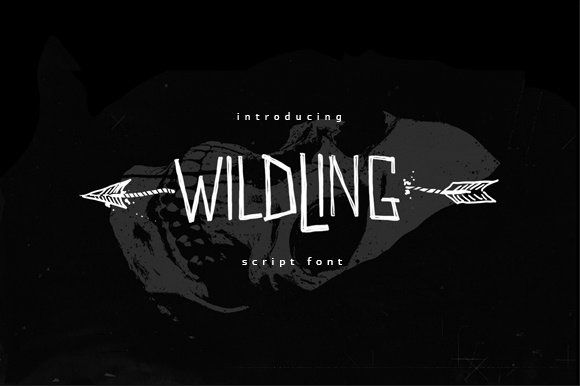
Introducing Wildwildling, the enchanting script font that's ready to script your digital designs in style. Handcrafted with textured lines and an array of unique styles, this font breathes life into your words, giving them a touch of whimsy and charm.
Whether you're painting your website in bold headlines, crafting captivating social media posts, or sending invitations adorned with elegance, Wildwildling is the artist's brush you need to paint your digital canvas. Its versatility knows no bounds, embracing projects from the modern to the vintage, the chic to the casual.
With Wildwildling, you'll find the perfect companion for your advertising campaigns, packaging designs, or eye-catching posters. It's the font that adds that extra touch of charisma, turning your designs into works of art that dance before the eyes.
So, if you're ready to unleash your creativity and make a statement that resonates, Wildwildling is your beacon of inspiration. Dive into a world of boundless expression and experience the magic of a font that captures the essence of the wild and the wonderful.
Let Wildwildling be the spark that ignites your imagination and sets your words ablaze with personality. It's the key to unlocking a treasure chest of design possibilities, where your ideas take flight and your vision becomes a reality.